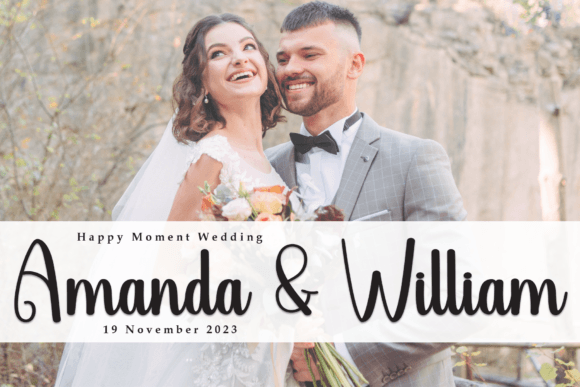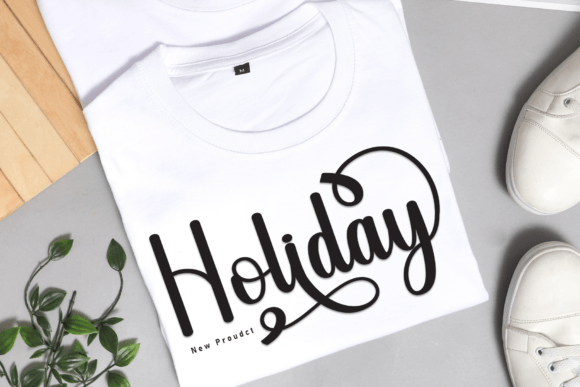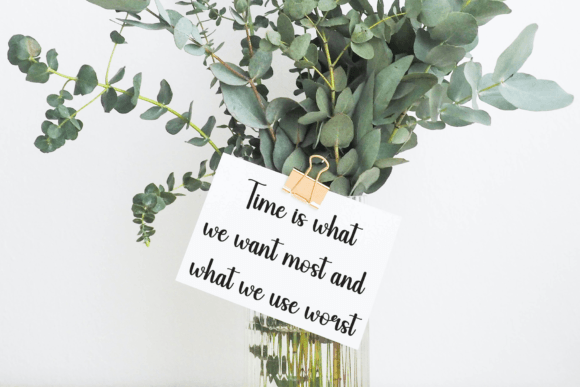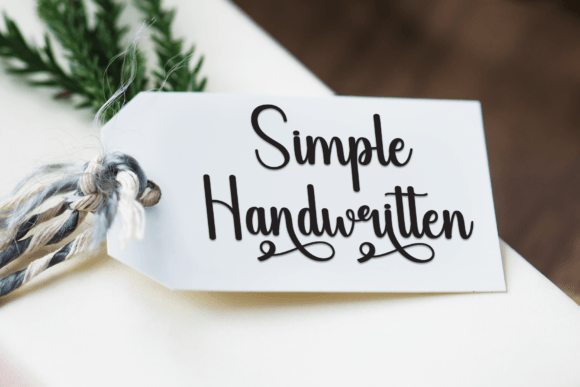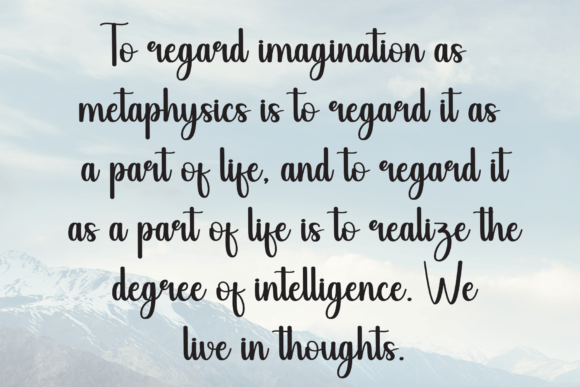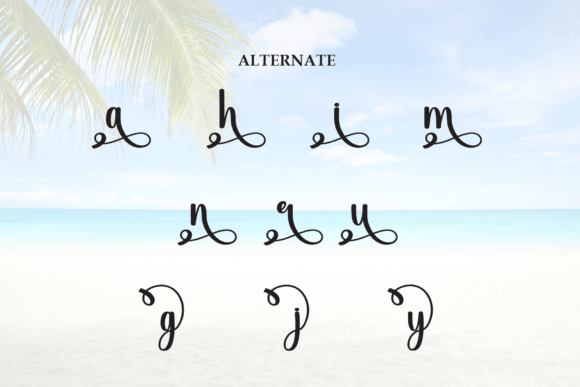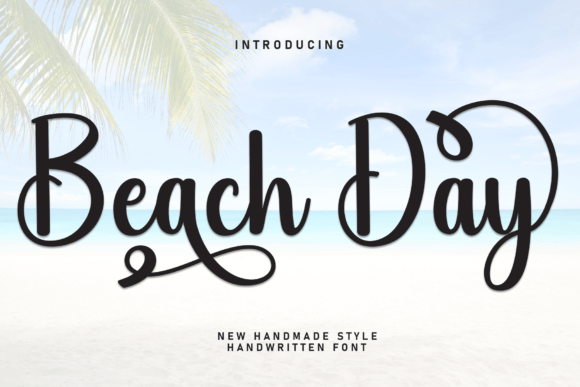
Introducing Beach Day Font: The Perfect Addition to Your Design Arsenal
Are you tired of using the same old fonts in your designs? Look no further! Beach Day Font is a sweet and friendly handwritten display font that’s sure to add a fun touch to your creations. In this article, we’ll dive into the features and benefits of Beach Day Font, and explore how it can elevate your designs, from wedding invitations to cards and beyond.
What is Beach Day Font?
Beach Day Font is a beautifully crafted handwritten display font that’s perfect for designers and crafters looking to add a personal touch to their work. With its sweet and friendly vibe, this font is ideal for creating eye-catching designs that are sure to delight. Whether you’re working on a wedding invitation, a greeting card, or a social media graphic, Beach Day Font is the perfect choice.
Key Features of Beach Day Font
• Cute and Fun: Beach Day Font is designed to bring a smile to your face. Its playful and carefree vibe makes it perfect for designs that need a fun and lighthearted touch.
• Handwritten Display Font: With its handwritten feel, Beach Day Font adds a personal touch to your designs. Its unique and organic look sets it apart from more traditional fonts.
• Versatile: Beach Day Font is incredibly versatile, making it suitable for a wide range of design projects, from wedding invitations to social media graphics.
• Easily Readable: Despite its playful nature, Beach Day Font is surprisingly easy to read, making it perfect for designs that require a clear and concise message.
Beach Day Font is particularly well-suited for wedding invitations and cards. Its sweet and romantic vibe makes it perfect for creating beautiful and memorable wedding designs. Imagine pairing Beach Day Font with a gorgeous floral pattern or a stunning beach-inspired background – the result is sure to be breathtaking!
Beyond Wedding Invitations: Other Design Ideas for Beach Day Font
While Beach Day Font is perfect for wedding invitations, its uses don’t stop there. Here are a few more design ideas to get you started:
• Greeting Cards: Add a personal touch to your greeting cards with Beach Day Font. Whether it’s a birthday, anniversary, or get-well card, this font is sure to make your design stand out.
• Social Media Graphics: Beach Day Font is perfect for creating eye-catching social media graphics. Use it to create fun and engaging posts that are sure to delight your followers.
• Party Invitations: Whether you’re planning a birthday party, baby shower, or bridal shower, Beach Day Font is the perfect choice for creating fun and festive invitations.
Tips for Using Beach Day Font
To get the most out of Beach Day Font, here are a few tips to keep in mind:
• Pair it with a Simple Background: Beach Day Font is a statement font, so be sure to pair it with a simple background that won’t compete with the text.
• Experiment with Colors: Beach Day Font looks great in a variety of colors, so don’t be afraid to experiment and find the perfect hue for your design.
• Use it Sparingly: While Beach Day Font is beautiful, it can be overwhelming if used too much. Use it sparingly to create a clear and concise message.